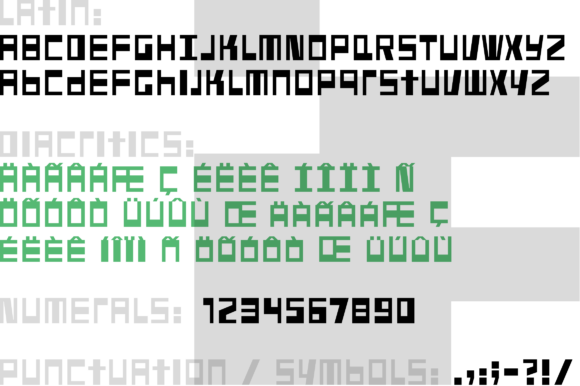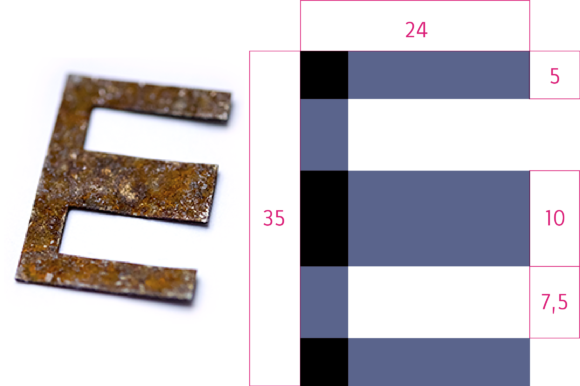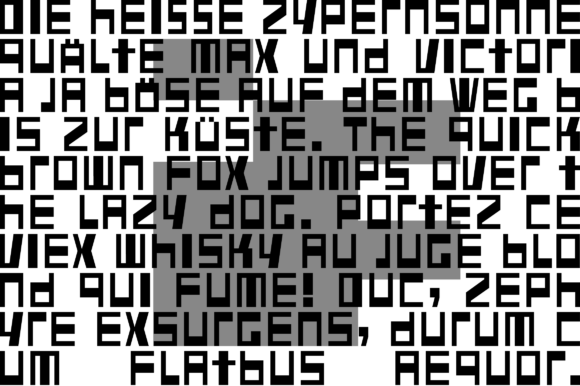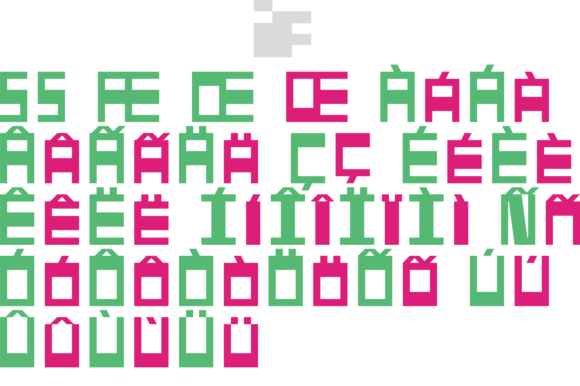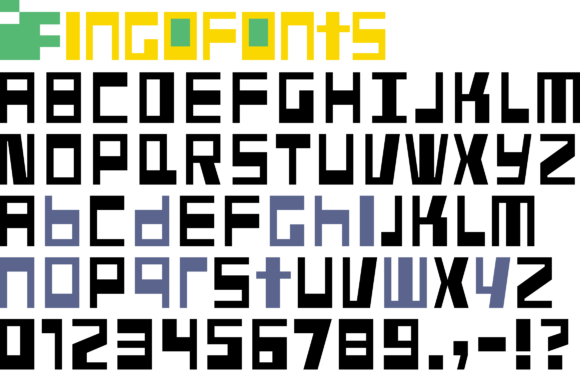
The Designer’s Delight: Exploring the Fun and Playful Fundstueck Font
I’ll never forget the time I was working on a project for a trendy boutique client, and I just couldn’t find the right font to match their quirky vibe. I scoured the internet, tried out dozens of fonts, but nothing seemed quite right. That was until I stumbled upon Fundstueck – a fun and playful display font that instantly brought my design to life! In this article, I’ll share my experience with Fundstueck, its unique features, and how to make the most of it in your creative projects.
- ✅ Unique and playful feel that’s perfect for creative projects
- ✅ Highly legible, even at larger font sizes
- ✅ Supports multiple languages and has a wide range of glyphs
- ✅ Contemporary twist that will set your design apart
- ⚠️ May not be suitable for body text or smaller font sizes due to its playful nature
- ⚠️ Some users may find the font a bit too bold or attention-seeking
The Story Behind Fundstueck: Designer Inspiration
Fundstueck was designed with the goal of creating a unique and playful display font that would add a contemporary twist to creative projects. The designer drew inspiration from a mix of modern typography and vintage signage, resulting in a font that’s both fun and sophisticated. While the designer’s exact story may be unknown, it’s clear that Fundstueck was crafted with love and care, making it a joy to use in design projects.
Q: What type of projects is Fundstueck best suited for?
A: Fundstueck is perfect for creative projects that require a fun and playful touch, such as posters, flyers, social media graphics, and branding materials.
Q: Can I use Fundstueck for body text or smaller font sizes?
A: While Fundstueck is highly legible, its playful nature may make it less suitable for body text or smaller font sizes. It’s best used as a display font to add visual interest and emphasis.
Q: Does Fundstueck support multiple languages?
A: Yes, Fundstueck supports multiple languages and has a wide range of glyphs, making it a versatile font for international design projects.